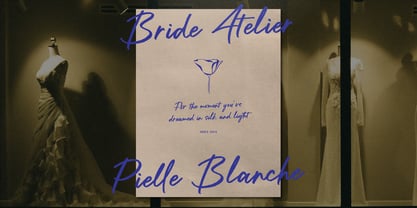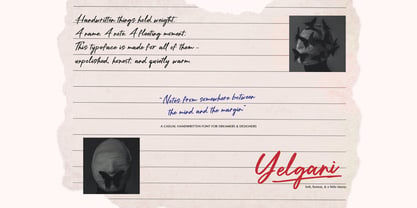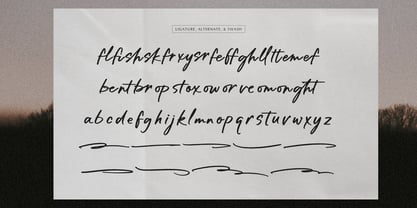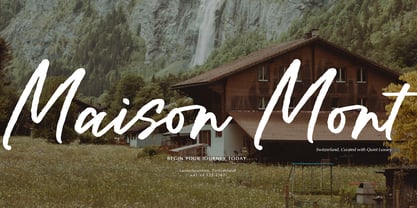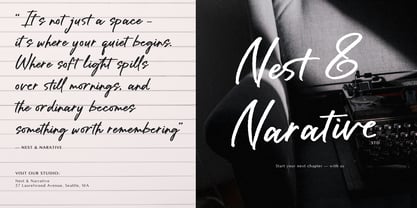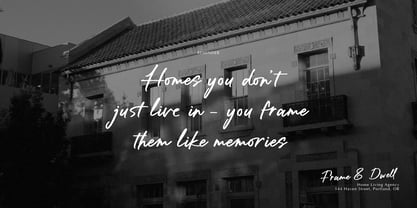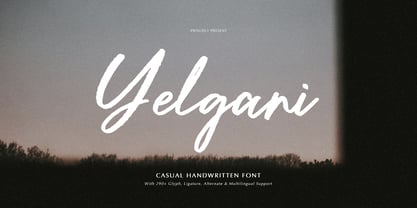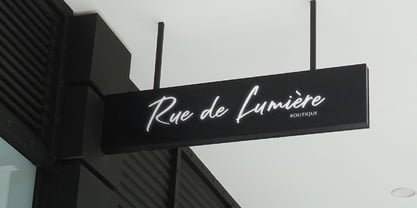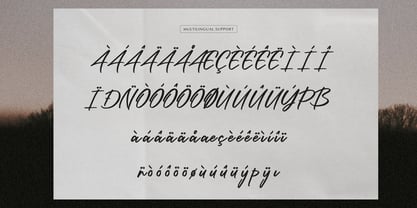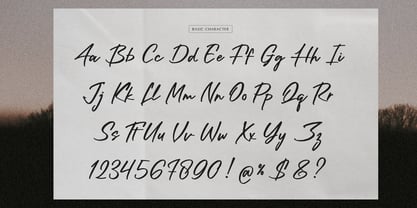
Yelgani
by Tini Fitriani
The Yelgani Font Family was designed by and published by Tini Fitriani. Yelgani contains 2 styles and family package options. More about this family
Yelgani | Casual Handwritten Font, from Gracetypestudio, suitable for any projects such as: logos, branding projects, homeware designs, product packaging, mugs, quotes, posters, shopping bags, t-shirts, book covers, name card, invitation cards, greeting cards, label, photography, watermark, special events, and all your other lovely projects that need a Casual Handwritten Font taste.
• Regular and Italic
• Alternate and Ligature
• Fonts include multilingual support